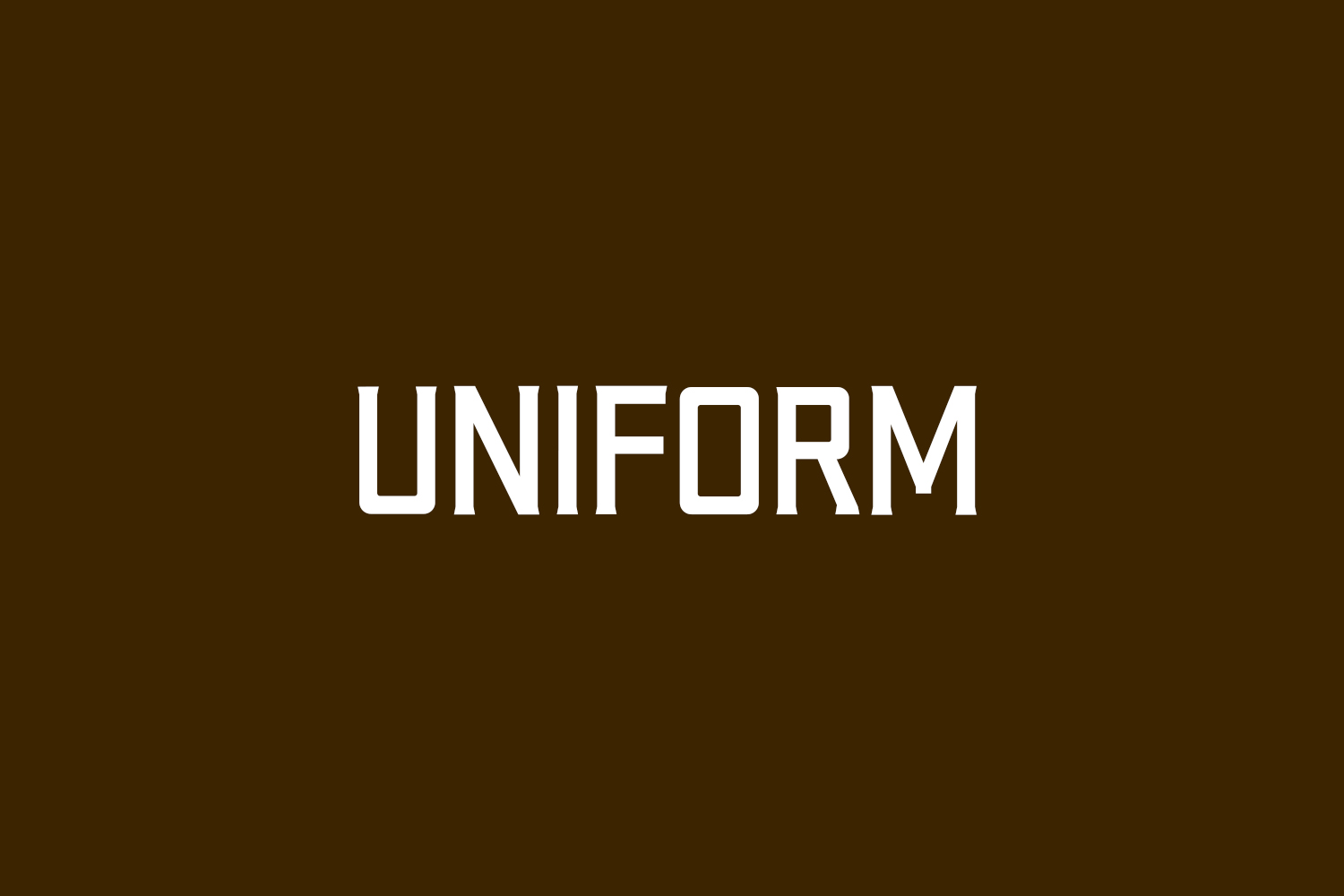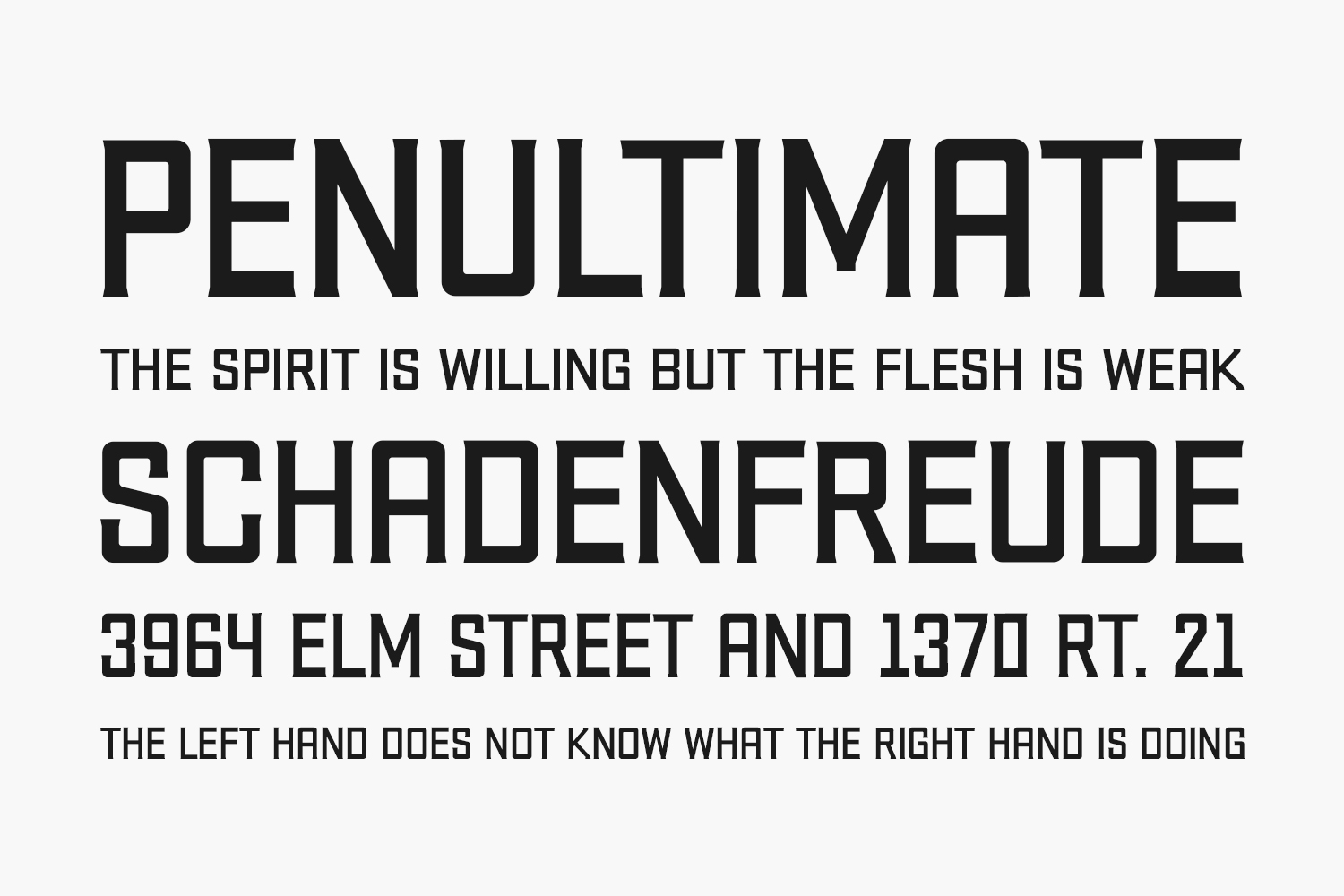
Uniform Free Font Family is a typeface inspired by sport and industry, designed to allow you a balance of versatility and structure in your designs. Uniform Free Font Family is free for personal use only.
Designed by Michael Cox
Uniform Light The quick brown fox jumps over the lazy dog
Uniform Regular The quick brown fox jumps over the lazy dog
Uniform Bold The quick brown fox jumps over the lazy dog